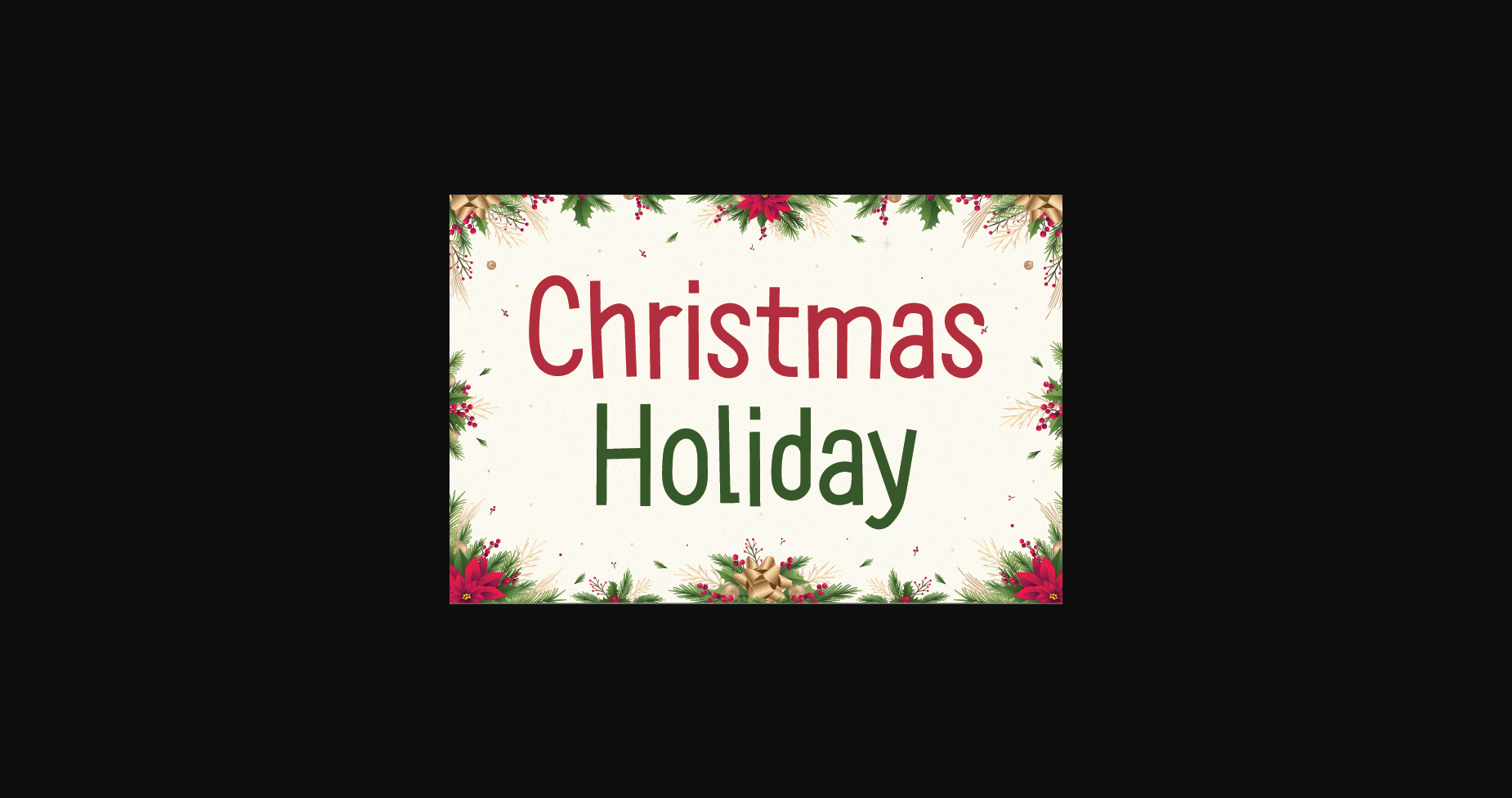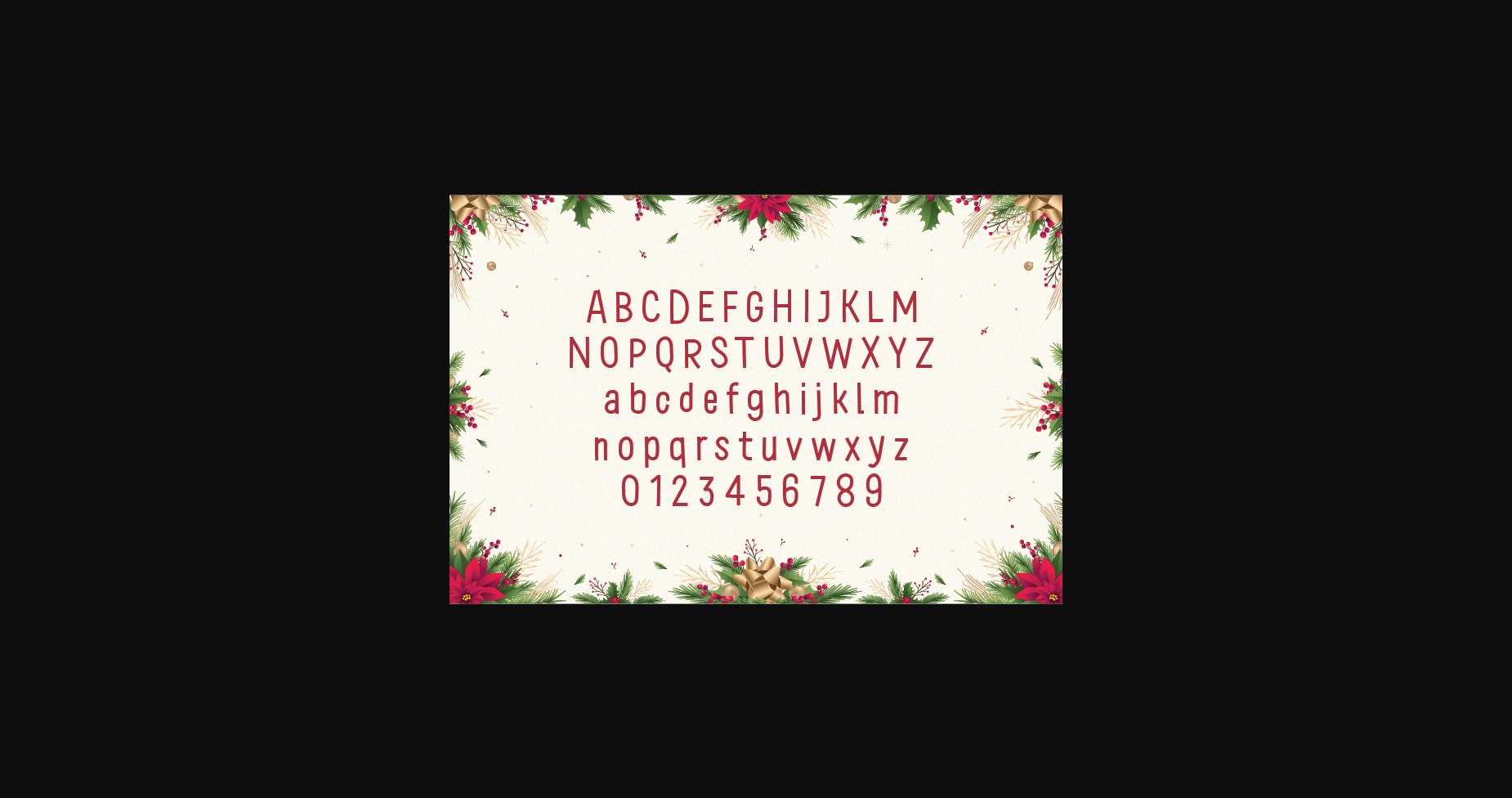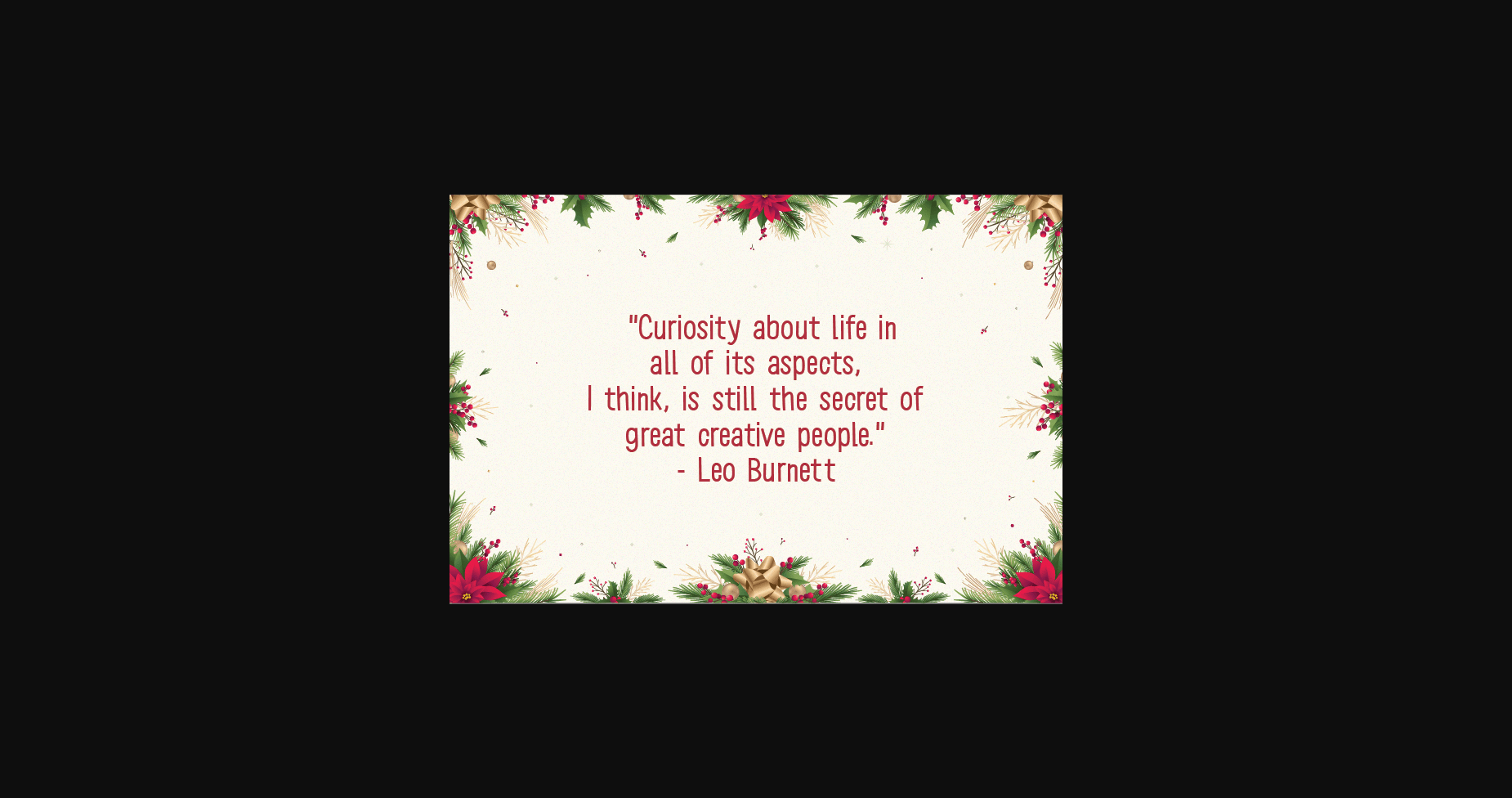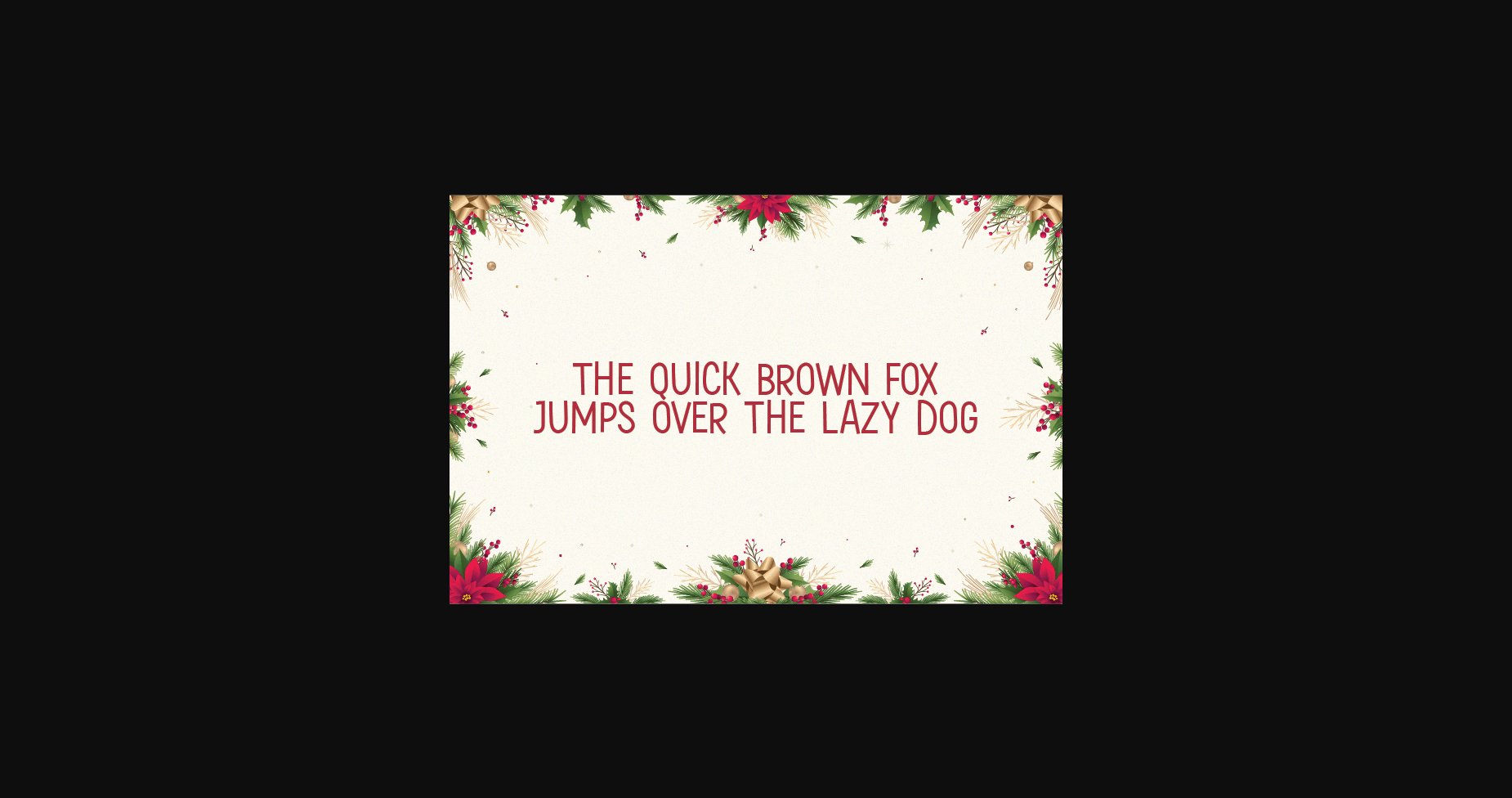
Christmas Holiday Font
About Christmas Holiday Font
Christmas Holiday is an interesting and unique sans serif font perfect for quotes, notes, T-shirts, and many more. Fall in love with its incredibly versatile style, and use it to create spectacular designs!